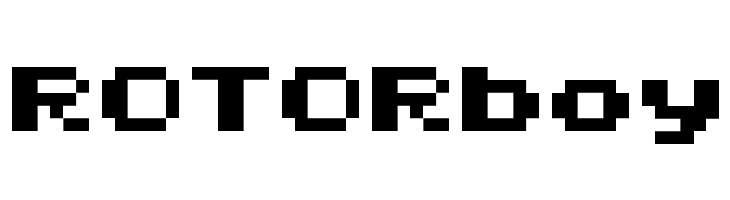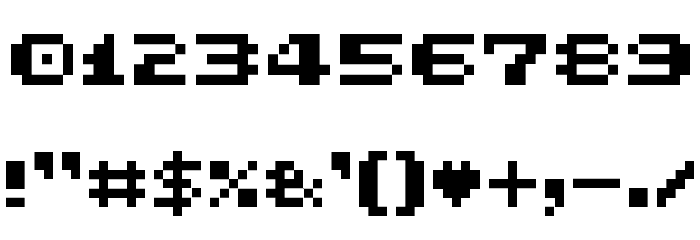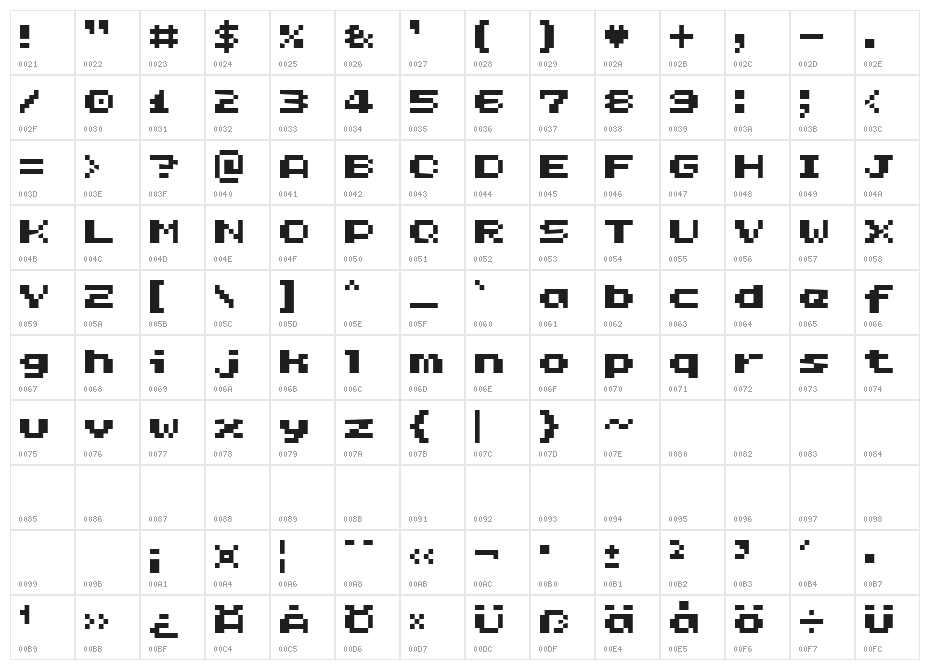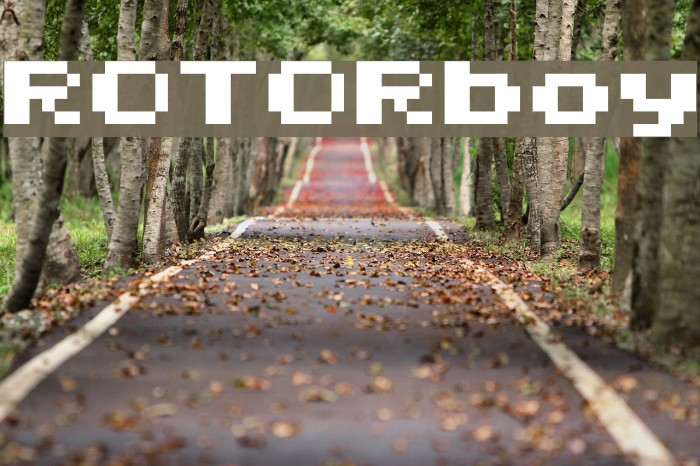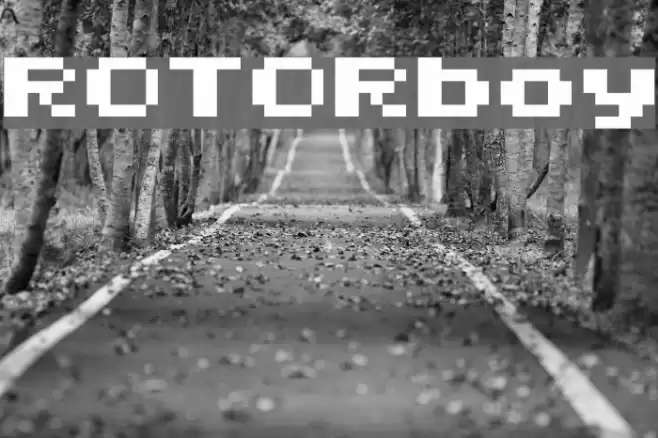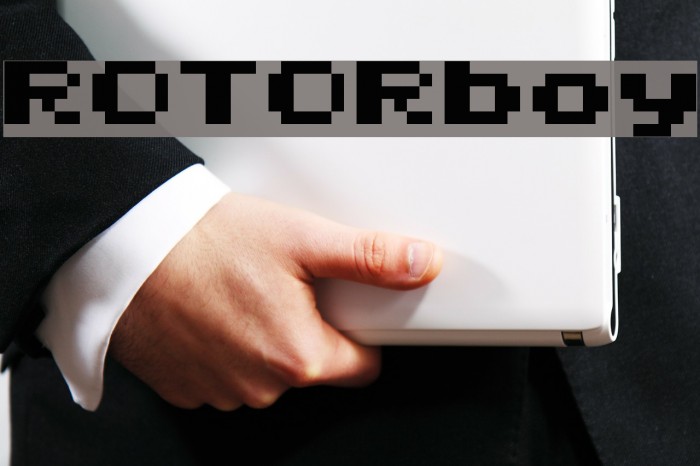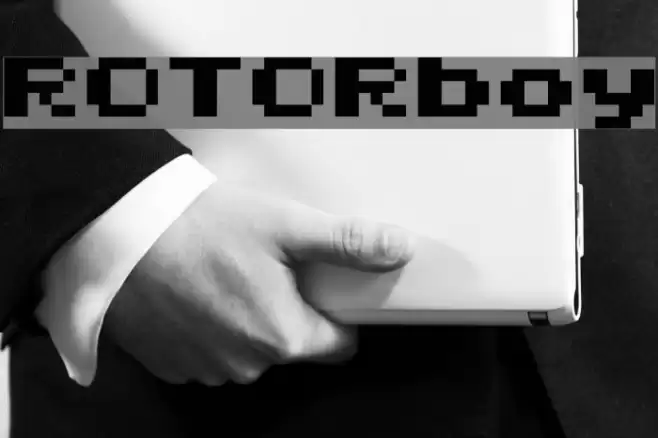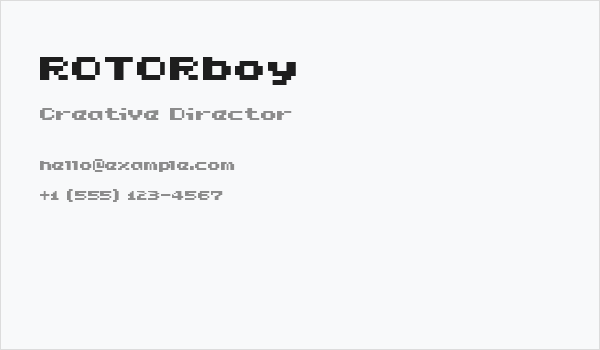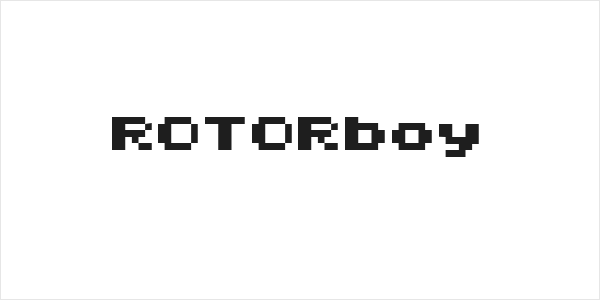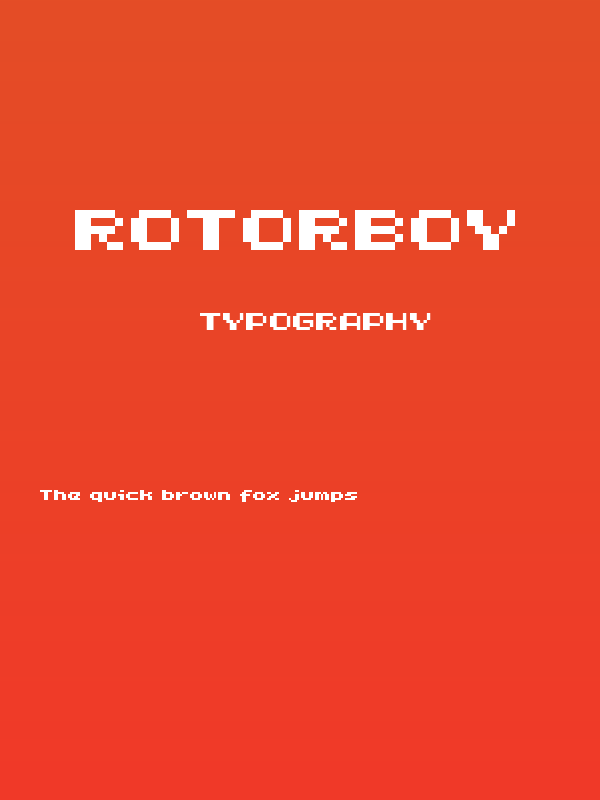
ROTORboy Font
ROTORboy Description
This font features a bold, pixelated style reminiscent of early digital displays and retro video games. The characters are constructed with a blocky, grid-like appearance, giving it a distinctly digital and nostalgic feel. Each letter and number is composed of square or rectangular shapes, creating a uniform and cohesive look. The uppercase and lowercase letters maintain a consistent height and width, contributing to a balanced and structured aesthetic. The special characters follow the same pixelated design, ensuring a seamless integration with the alphanumeric characters. This font is ideal for projects that aim to evoke a sense of nostalgia or pay homage to classic digital aesthetics.
| Proposed Projects | Ideal for retro-themed video games, digital art projects, and nostalgic branding. |